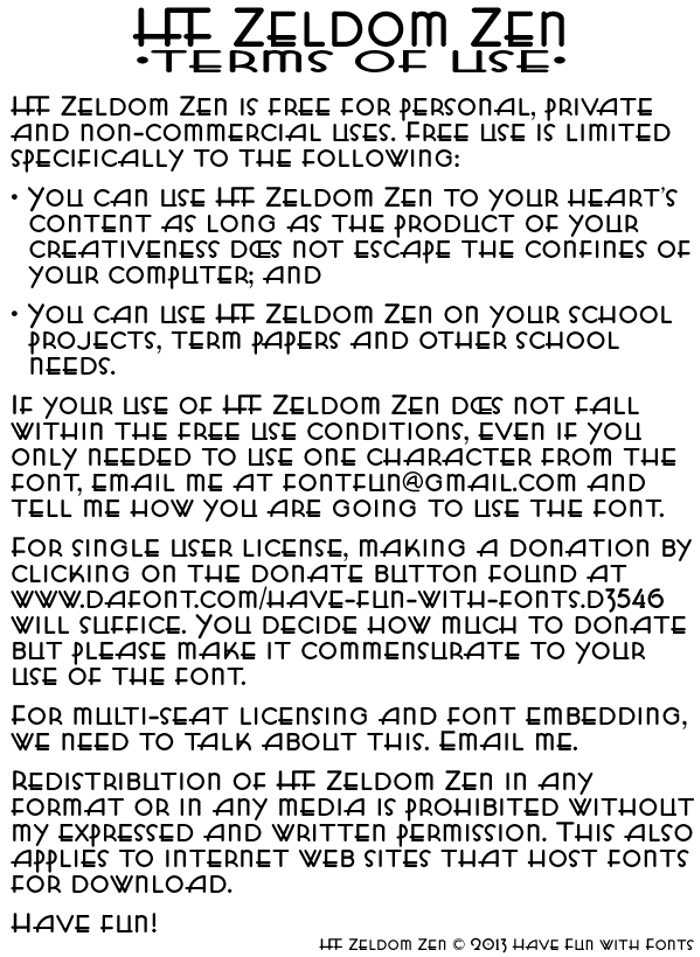
HFF Zeldom Zen Font
HFF Zeldom Zen
+ Complete Latin 1 character set
+ A-Z and 1-9 characters based on an alphabet from a book by Harry R.
Wright published in 1950.